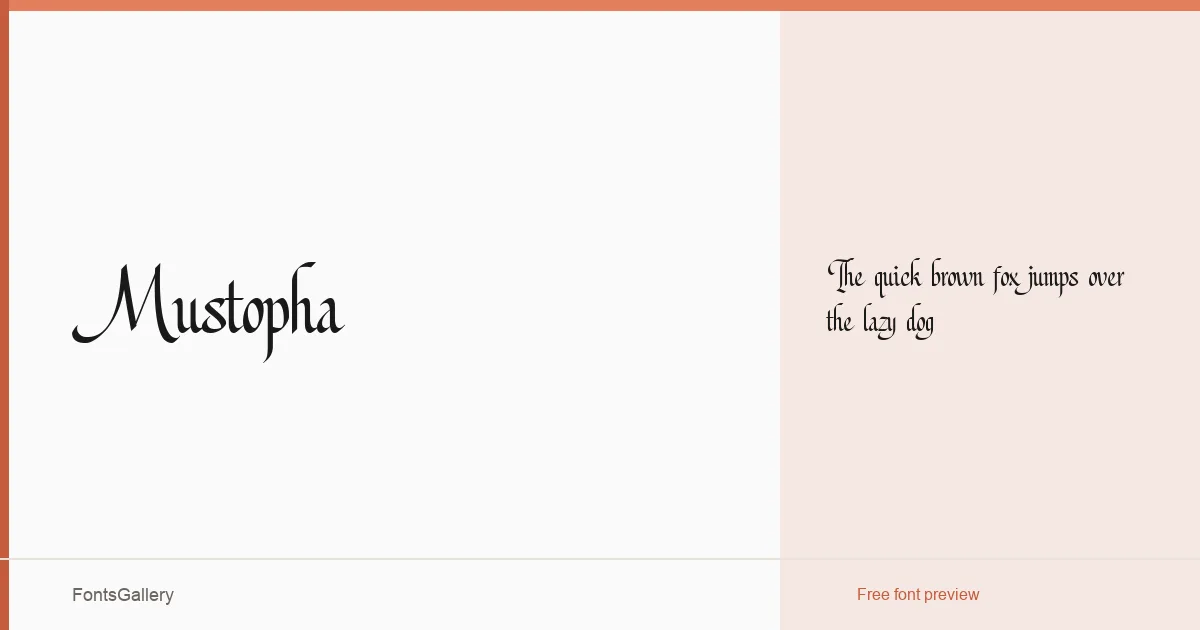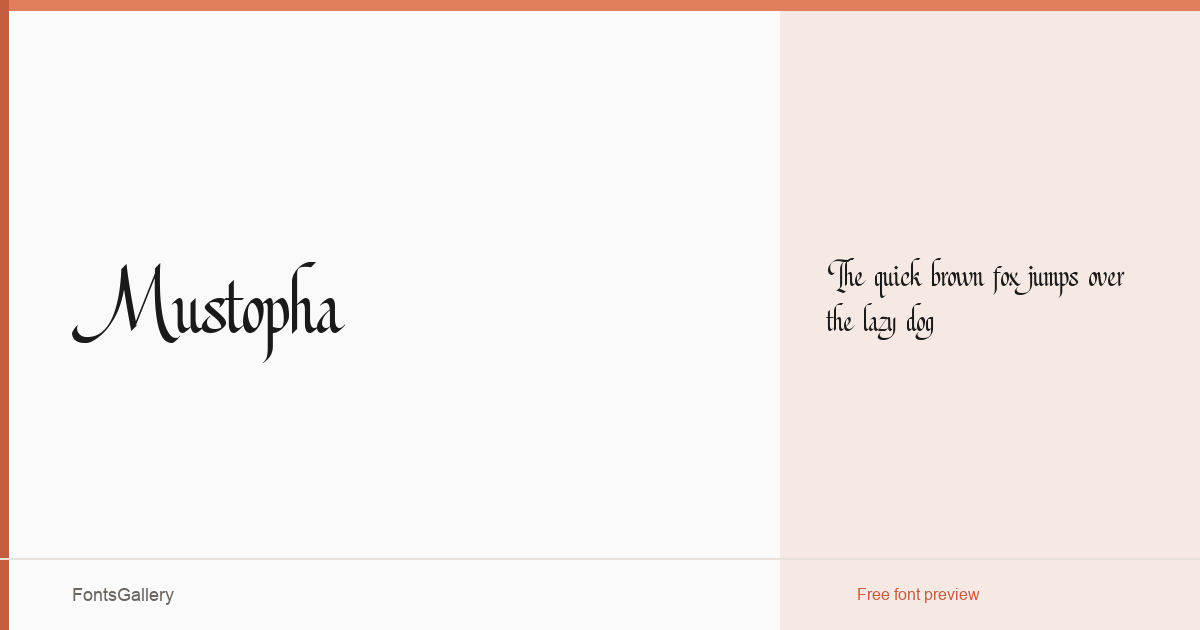
About Mustopha Font
Mustopha is an elegant script typeface designed by Ahmad Ramzi Fahruddin, crafted to evoke a sense of luxury, romance, and timeless sophistication. Its flowing letterforms make it a distinctive choice for projects that demand a refined and classic aesthetic. Whether used for personal creative work or formal designs, Mustopha carries a graceful presence that immediately commands attention.
As a script font, Mustopha features beautifully fluid strokes and sweeping curves that reflect its elegant and romantic character. Each letterform is carefully constructed to balance classic calligraphic tradition with a luxurious modern sensibility. The result is a typeface that feels both timeless and refined, making every word it sets feel intentional and artful.
Mustopha is ideally suited for logos, wedding stationery, invitation cards, branding materials, and certificates where an air of elegance and prestige is essential. Its romantic and classic qualities make it especially fitting for wedding and luxury lifestyle projects. For a striking typographic combination, pair Mustopha with Aresink for a cohesive script-forward design, or with Helvetica to create a beautiful contrast between expressive script and clean sans-serif.